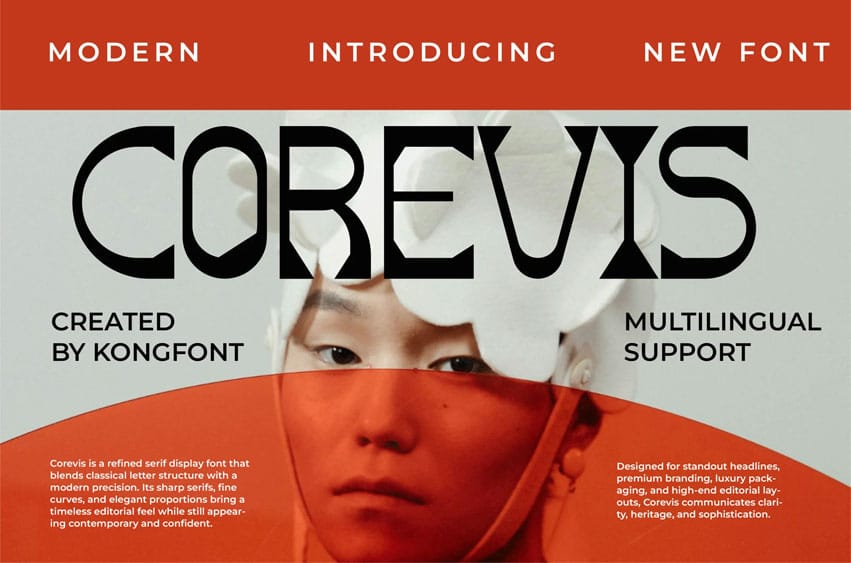
Corevis Font is a serif display font designed to combine timeless serif elegance with a bold, commanding character. Featuring strong strokes, confident serifs, and refined proportions, Corevis delivers a powerful visual identity that stands out while maintaining classic sophistication.
Perfect for headlines, logos, posters, branding, editorial covers, packaging, book titles, and premium marketing materials, Corevis excels where impact and elegance must coexist. Its display oriented design makes it ideal for large scale typography, giving every word authority and clarity.